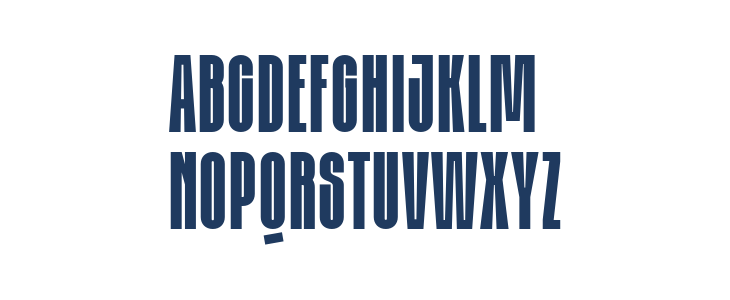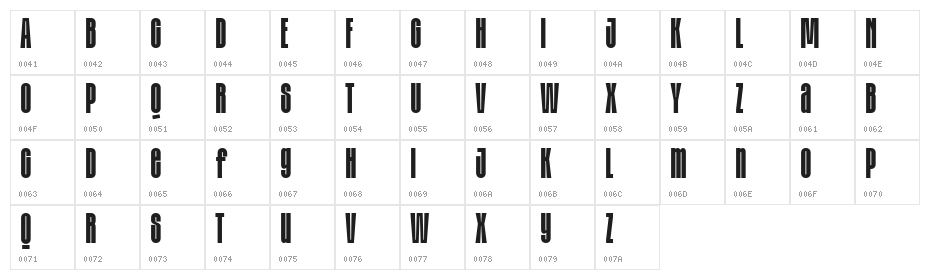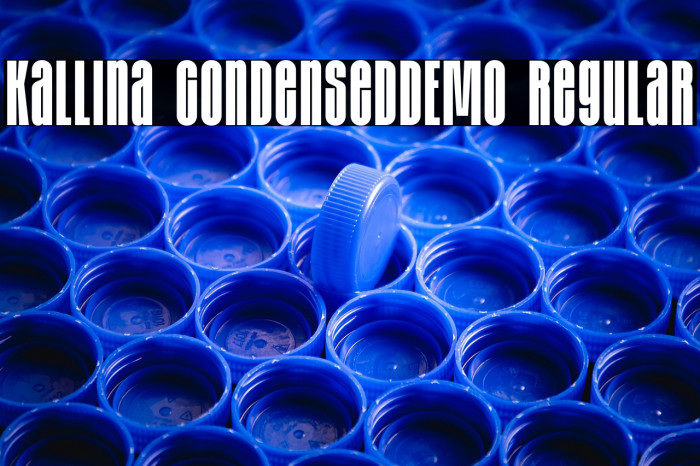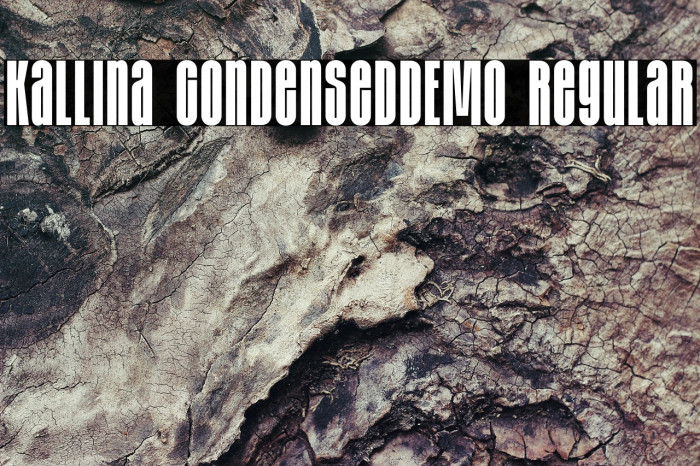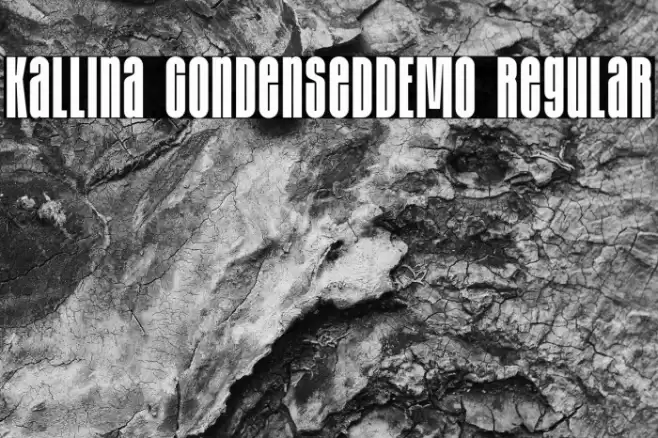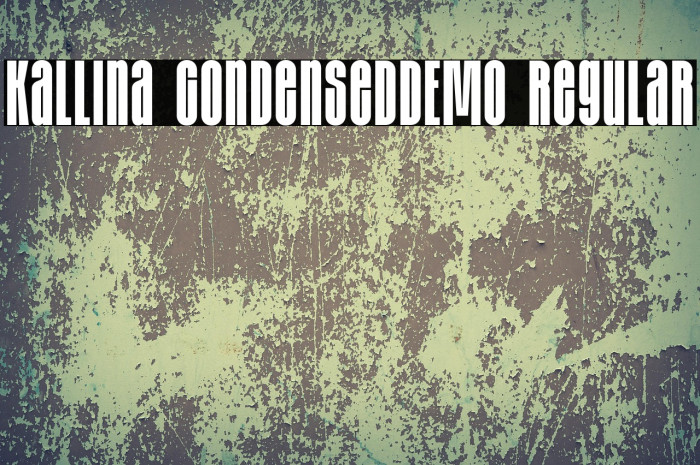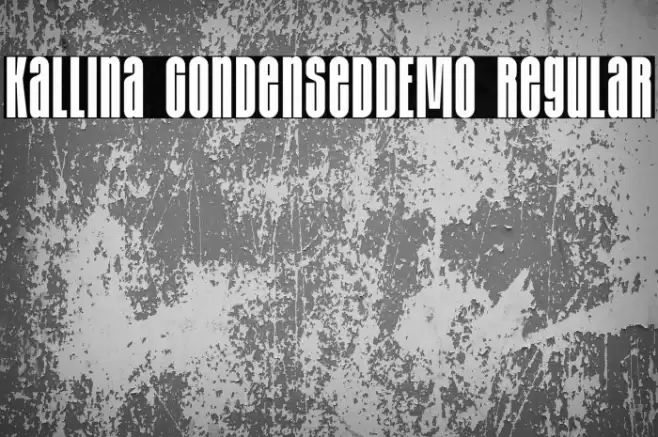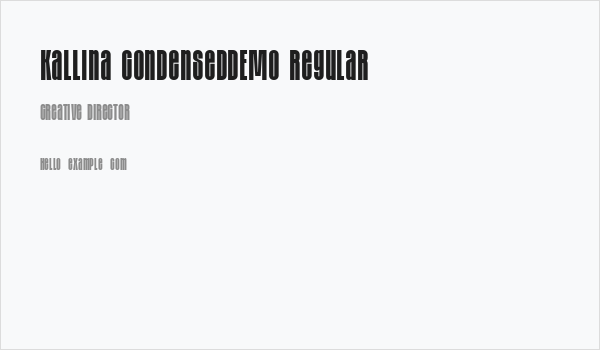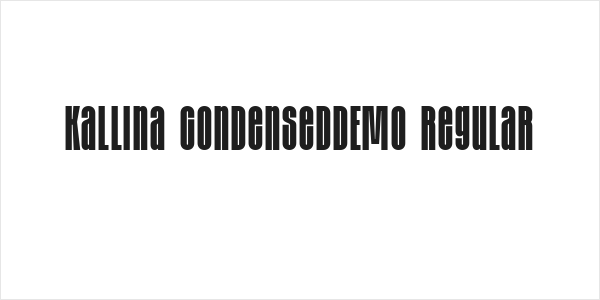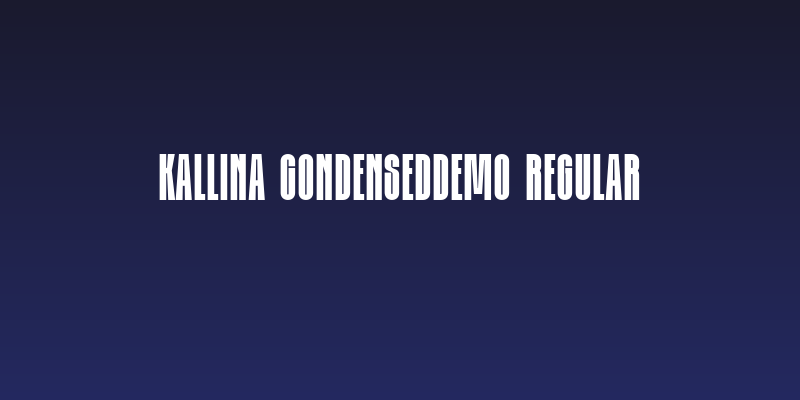
Kallina CondensedDEMO Regular Font
Kallina CondensedDEMO Regular Description
Bold, condensed, sans-serif font with a strong, modern appearance. The uppercase letters are tall and blocky, with uniform stroke width and minimal contrast. The lowercase characters are rounded and slightly wider, maintaining a bold style.
Kallina DEMO